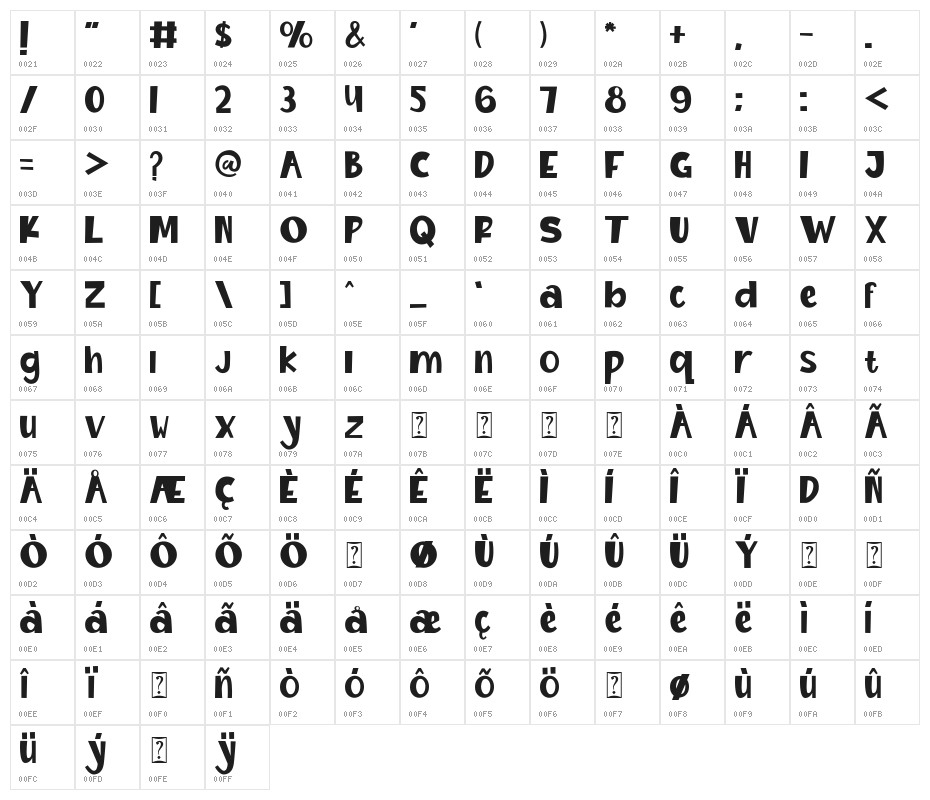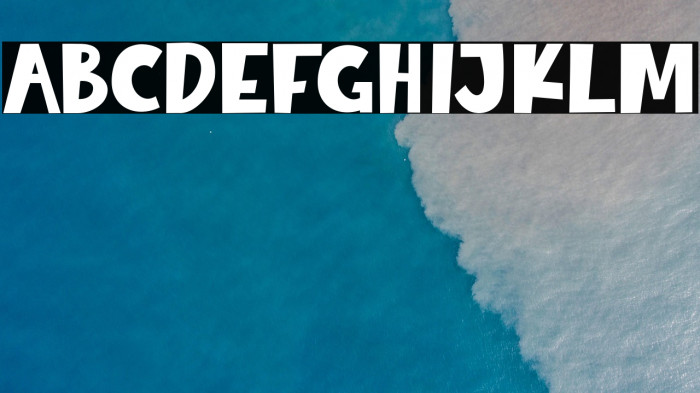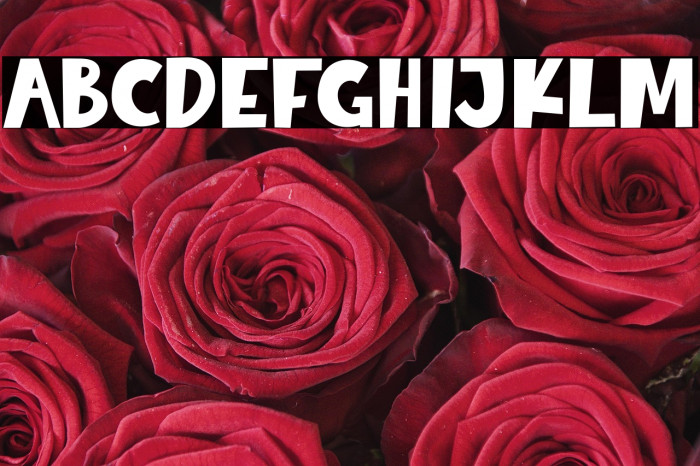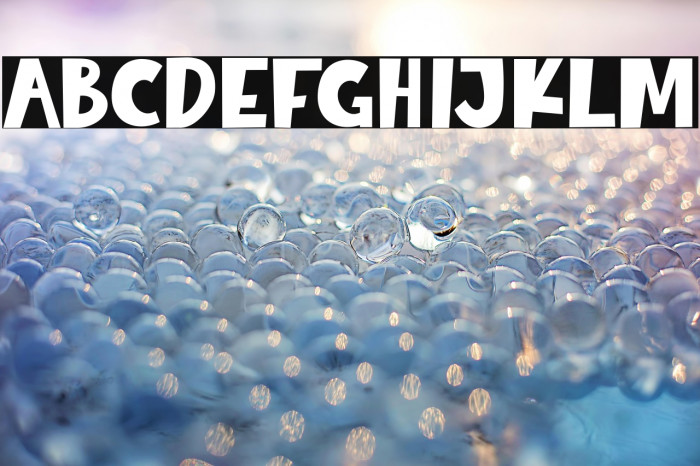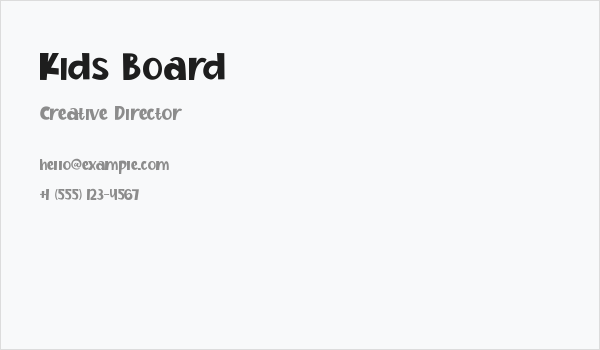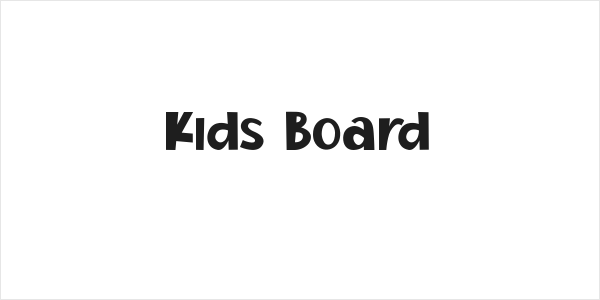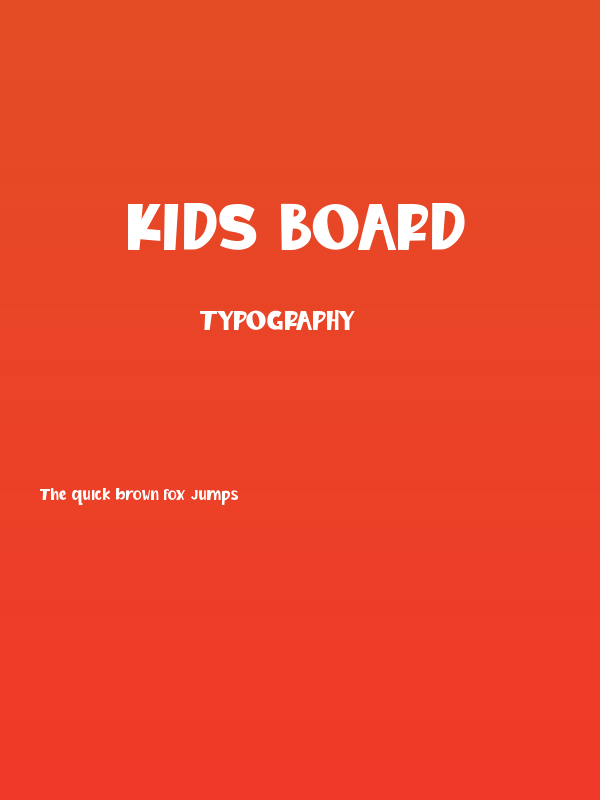
Kids Board Font
Kids Board Description
This playful and bold font features a whimsical design with exaggerated curves and a friendly appearance. The characters are thick and rounded, giving off a fun and approachable vibe. The uppercase letters are bold and slightly irregular, while the lowercase letters maintain a consistent, rounded style. Numbers are equally playful, with a chunky and dynamic form. Special characters are designed to match the overall lively aesthetic, making this font ideal for projects that require a touch of humor and creativity.
Overall StylePlayful, Whimsical
Proposed ProjectsIdeal for children's books, playful branding, party invitations, and educational materials.